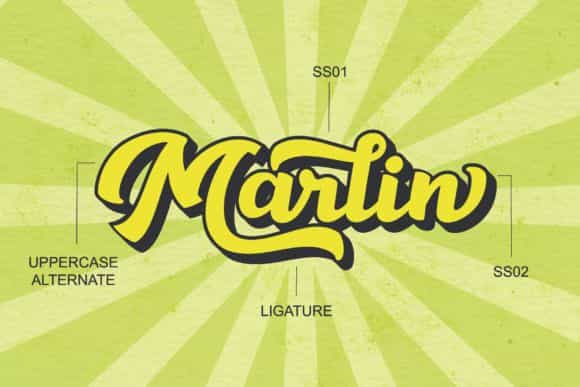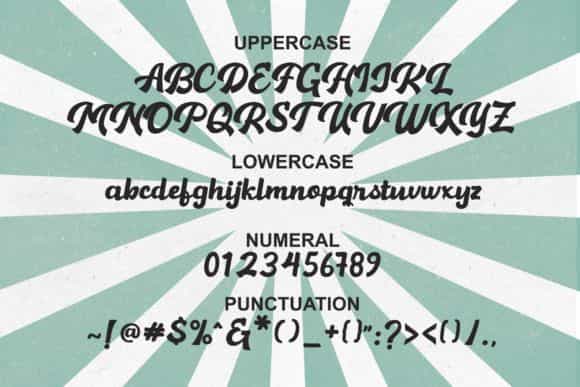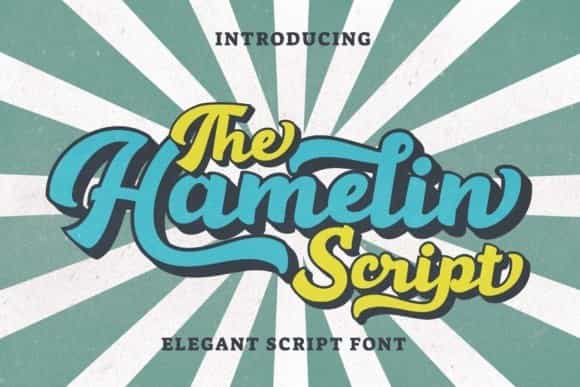
Hamelin Font is a robust and exceptional handwritten font that gives the impression of the vintage advertising fonts. Hamelin is the perfect font for a variety of projects, including logos and branding, headlines, invitations, stationery, wedding designs, social media posts, advertisements, product packaging, product designs, label, photography, watermark, special events or anything.